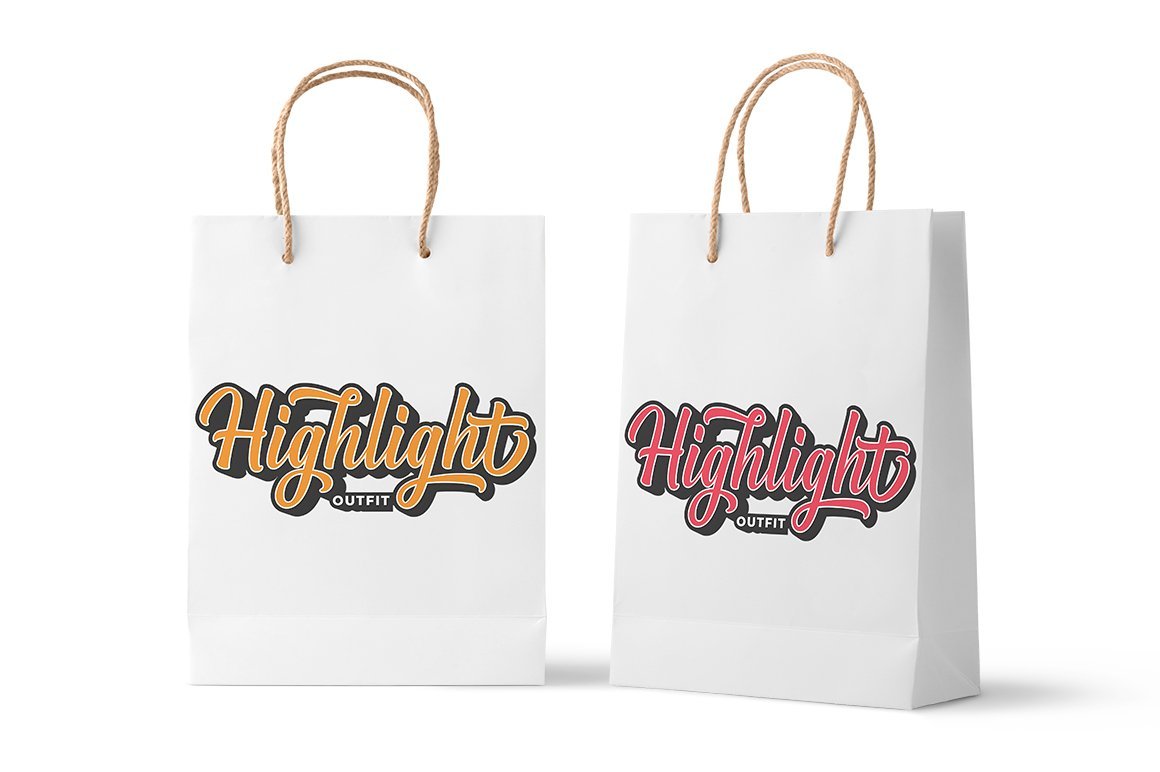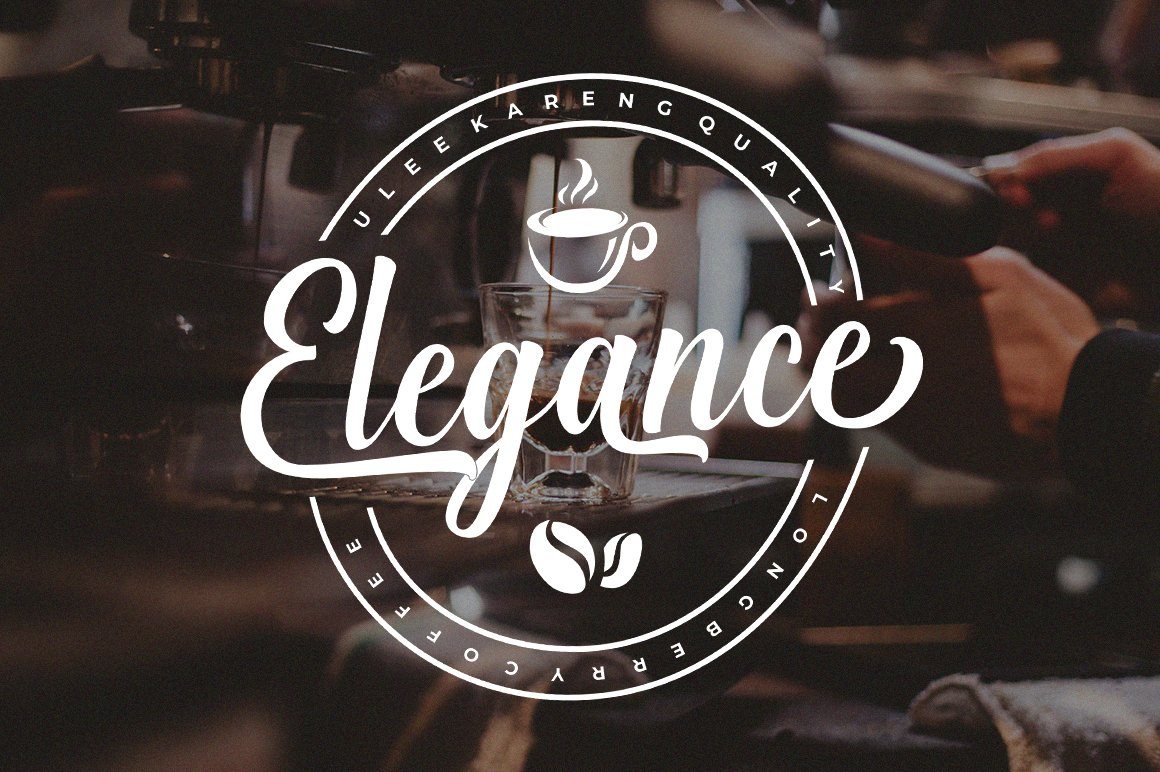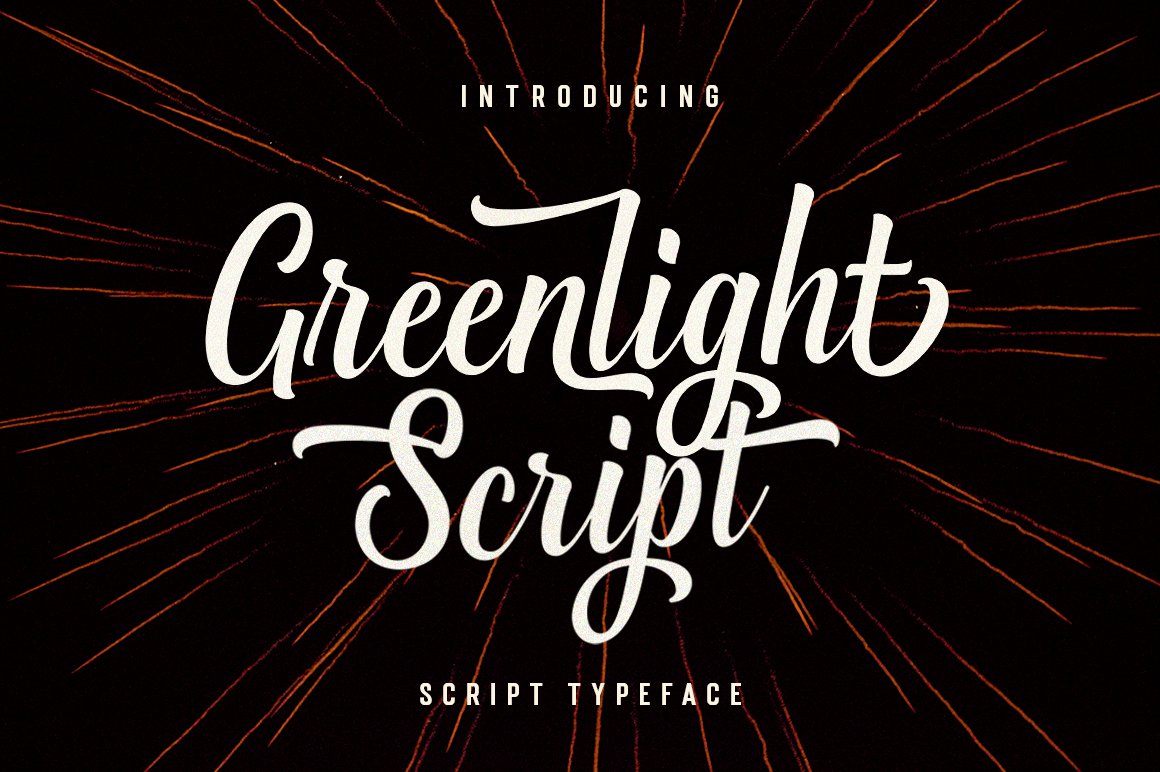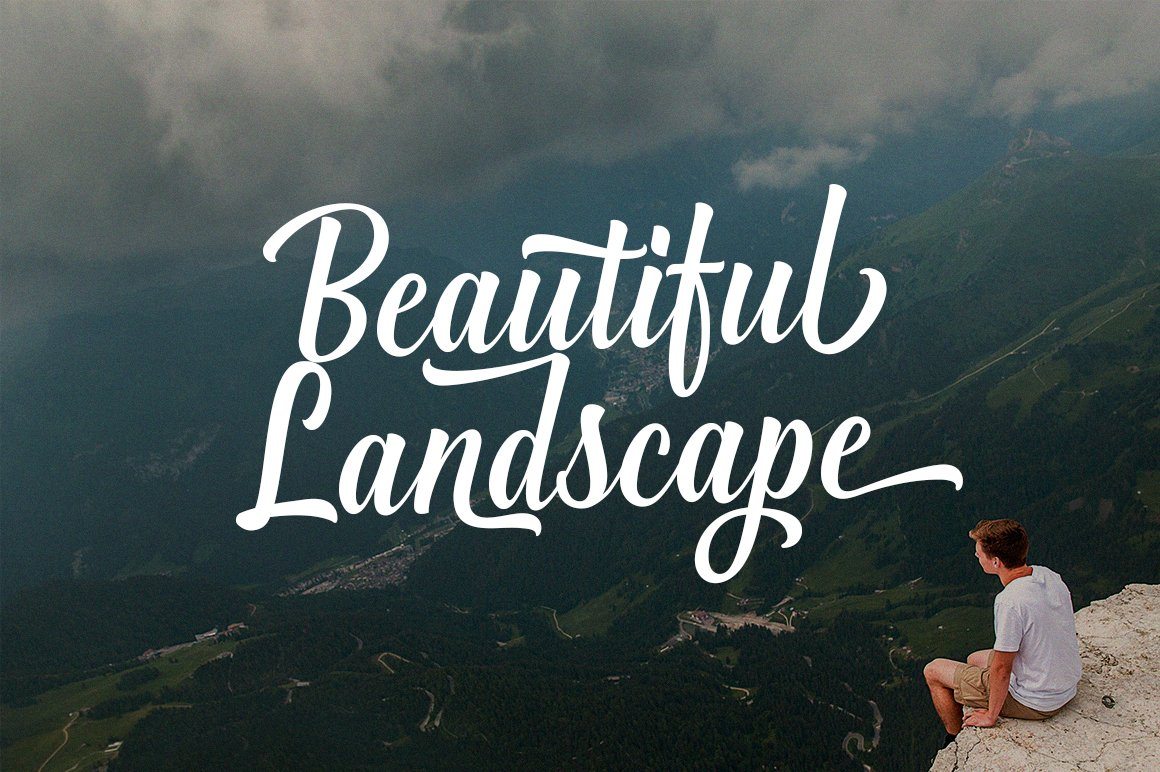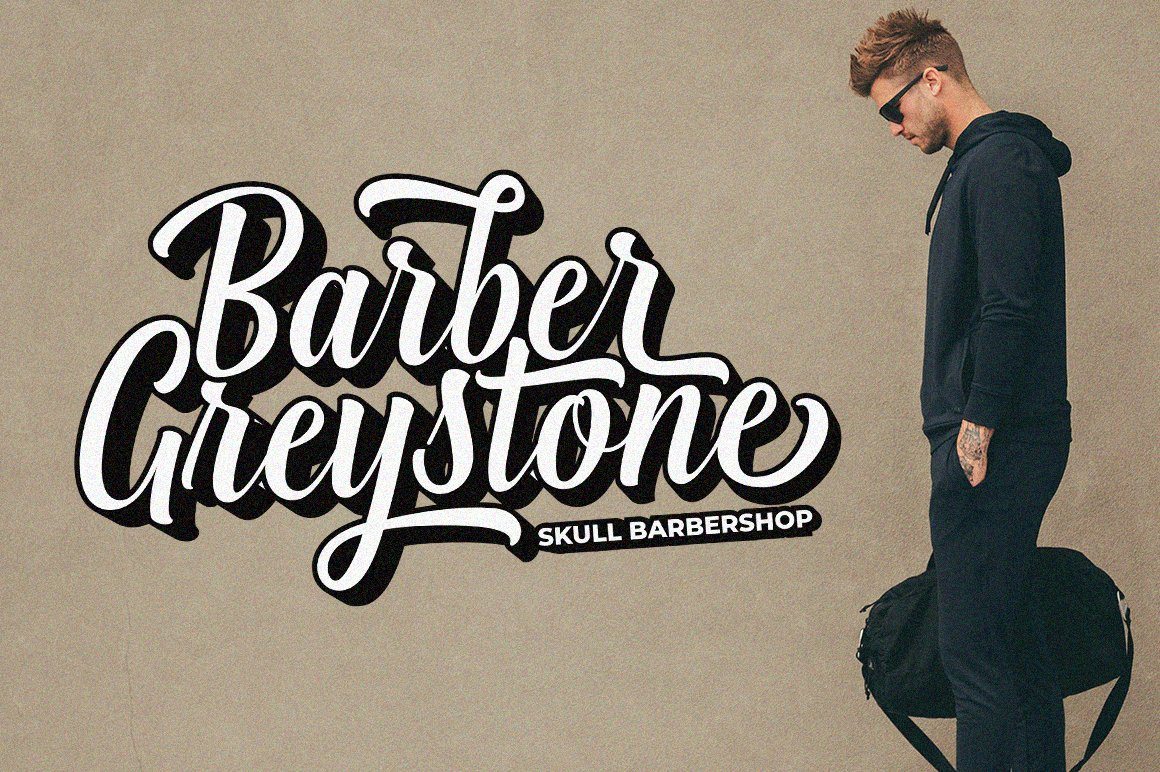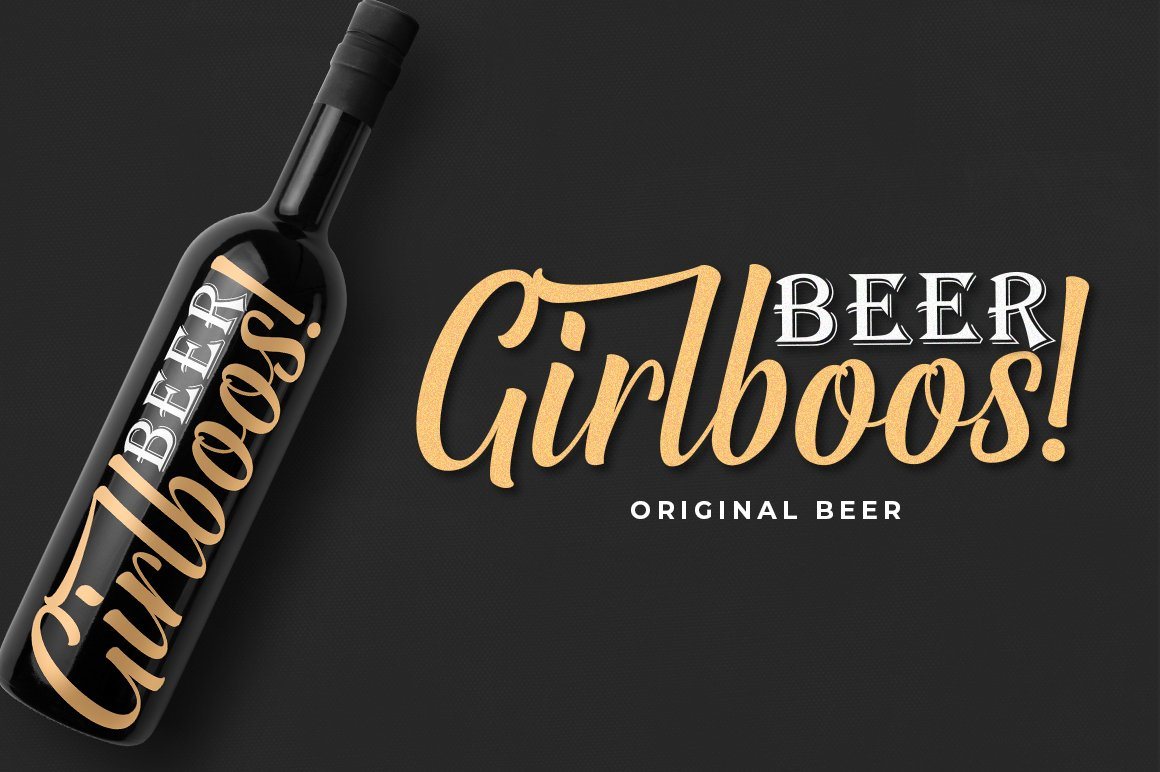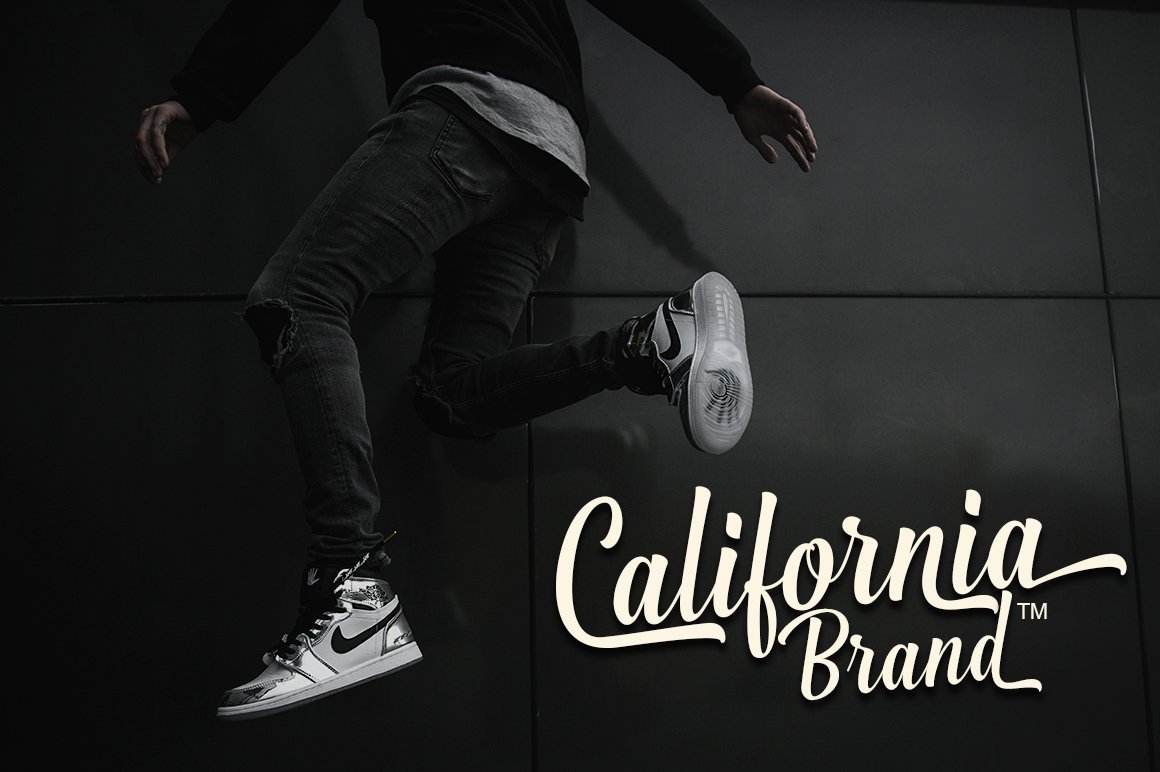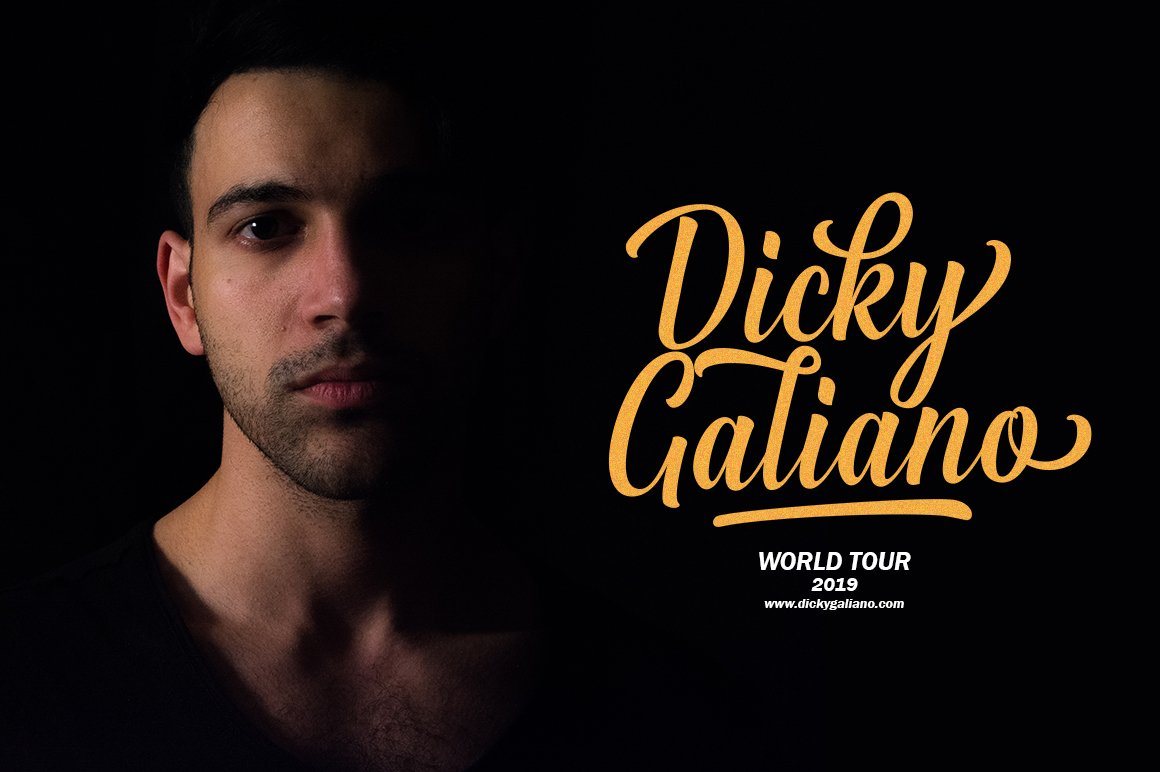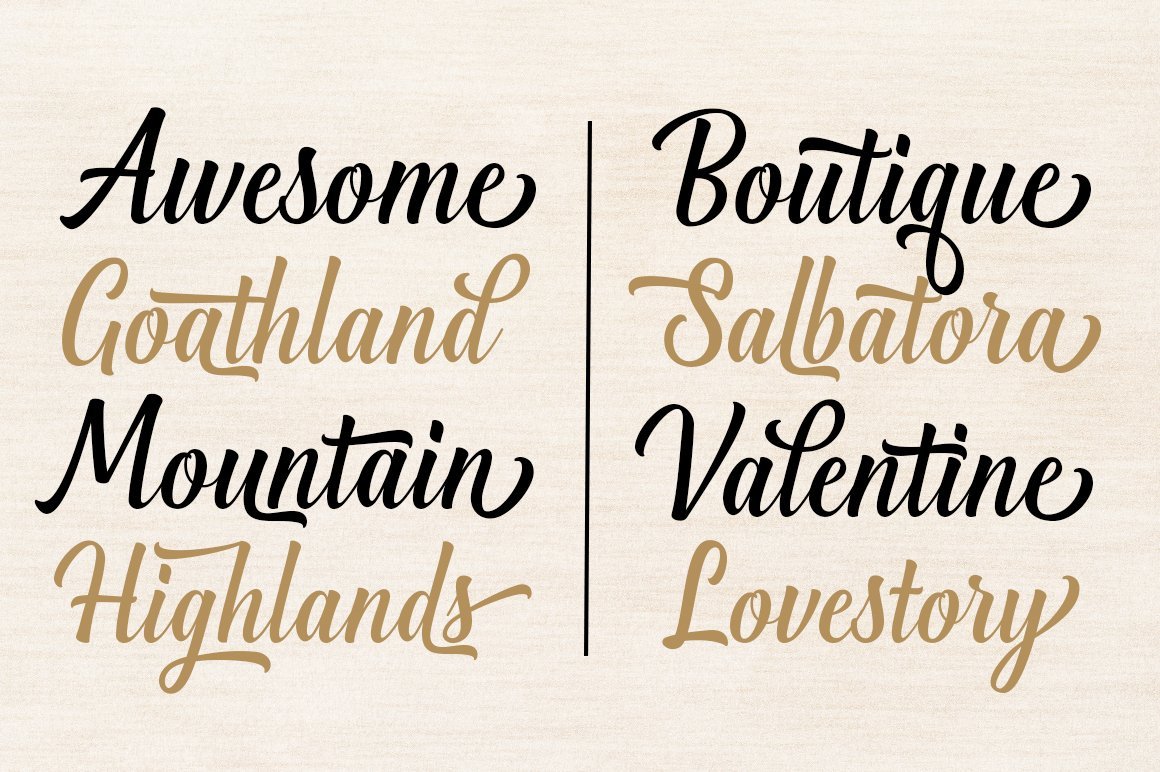
Greenlight Script
About Greenlight Script
Greenlight Script is a new and fresh font script that comes in a vintage and neat style. so this font can be used easily, even in mixing and matching with other fonts. so that it can provide alternatives and new sensations for designers or craftsmen, in working on various projects. Greenlight Script comes with uppercase letters, lowercase letters, numbers, punctuation, and so many variations on each character including OpenType alternatives, and general binders to allow you to customize the design. This font is perfect for all your projects such as wedding invitations, greeting cards, branding materials, business cards, quotes, posters, badges, greeting cards, vintage logos, or you can use these fonts for various logo projects and more. ! The following characters are ideal for creating interesting messages, mixing and matching Greenlight Script with a group of alternative characters that are suitable for your project. Mail support: If you have any question, please contact me Via e-mail ‘  ‘ Thank you, Great Studio